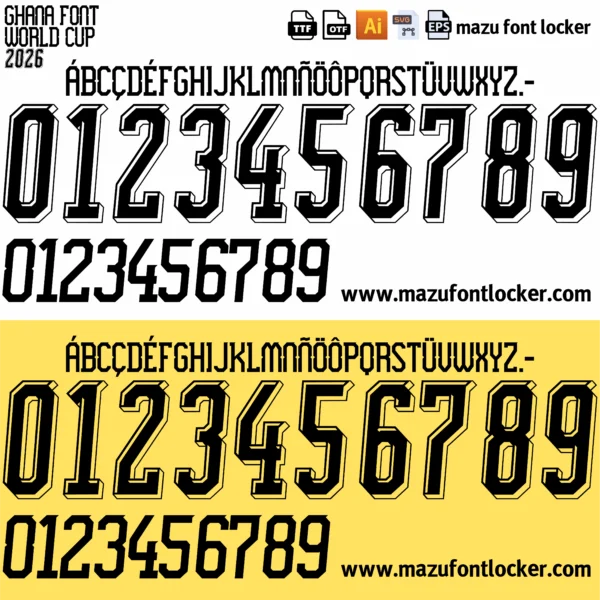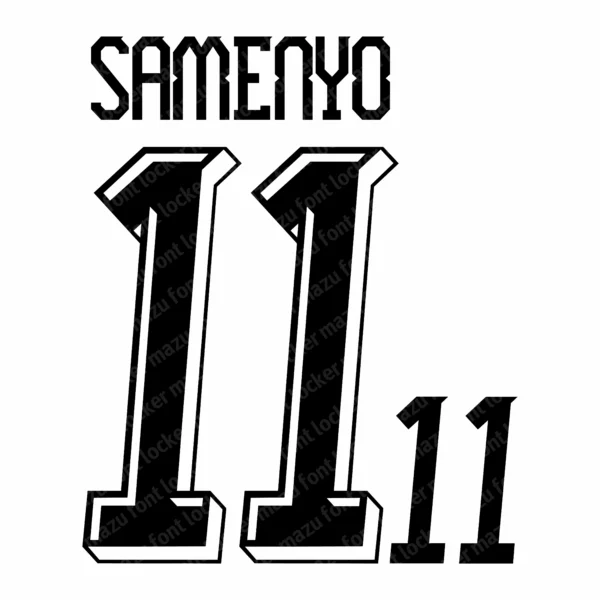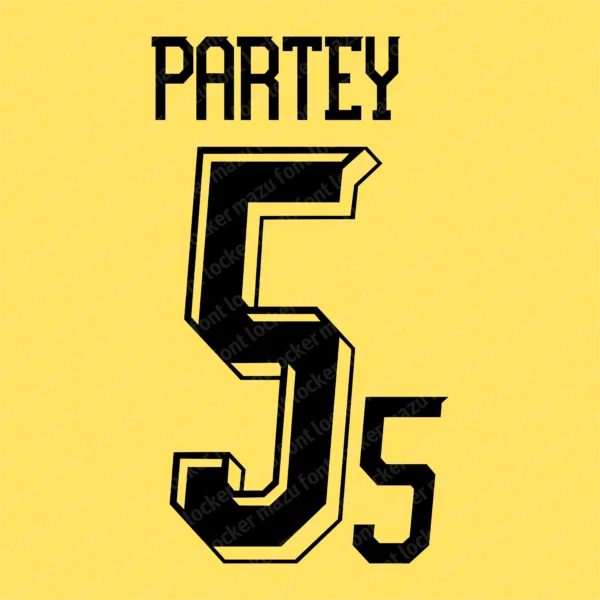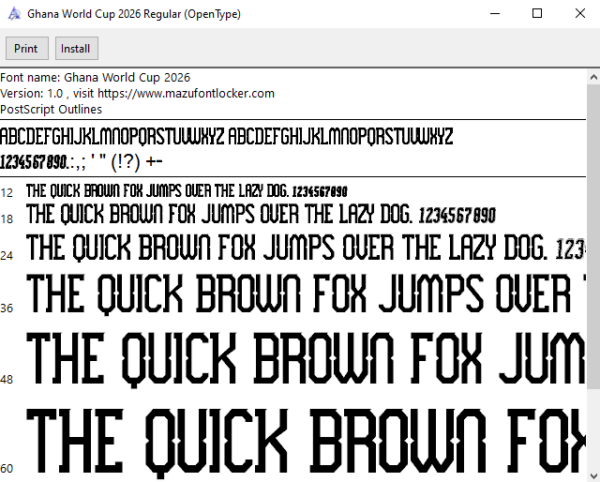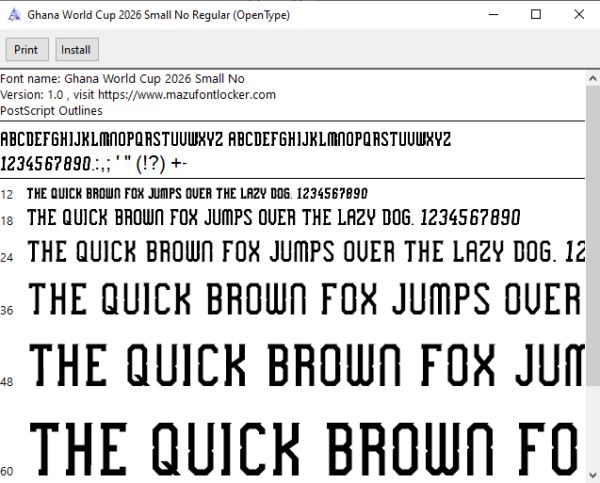
Ghana World Cup 2026 Font Vector – Authentic Black Stars Typeface
The Ghana World Cup 2026 Font Vector is a premium typeface that captures the bold and vibrant official lettering style inspired by the Black Stars for the 2026 FIFA World Cup. This high-quality vector font kit delivers the exact modern aesthetic used for Ghana’s national team kits, celebrating the spirit, energy, and pride of Ghanaian football.
Why Choose Ghana World Cup 2026 Font Vector
This font stands out because of its sharp vector precision and strong national identity. Every letter and number is crafted to reflect the powerful, confident typography expected on the Black Stars’ 2026 World Cup kits. Whether you’re designing official-looking templates or nostalgic football content, this font gives your projects that authentic Ghanaian flair.
The letterforms are tall, bold, and highly readable with clean, strong strokes. The design combines modern sharpness with the proud character of Ghanaian football typography.
The numerals feature bold curves and firm edges, ensuring excellent visibility on player jerseys while maintaining a premium and dynamic appearance suitable for both print and digital use.
- Full uppercase A–Z and numbers 0–9 in authentic Ghana 2026 style
- Multilingual Latin character support including diacritics
- Includes the exact crest glyph placement used under player numbers
The Ghana World Cup 2026 Font Vector is an independently designed typeface package. It is carefully crafted to replicate the official shirt lettering style inspired by Ghana’s 2026 World Cup campaign. This font kit is perfect for creative projects, fan edits, jersey designs, and football graphics.